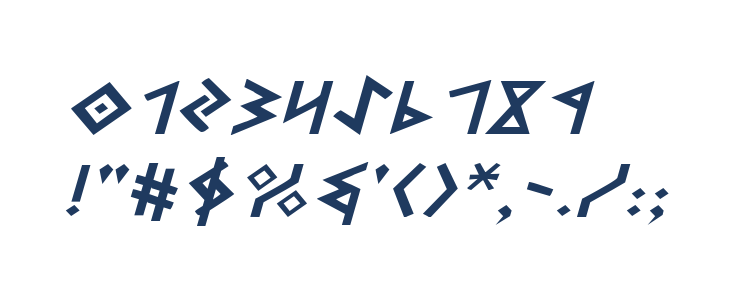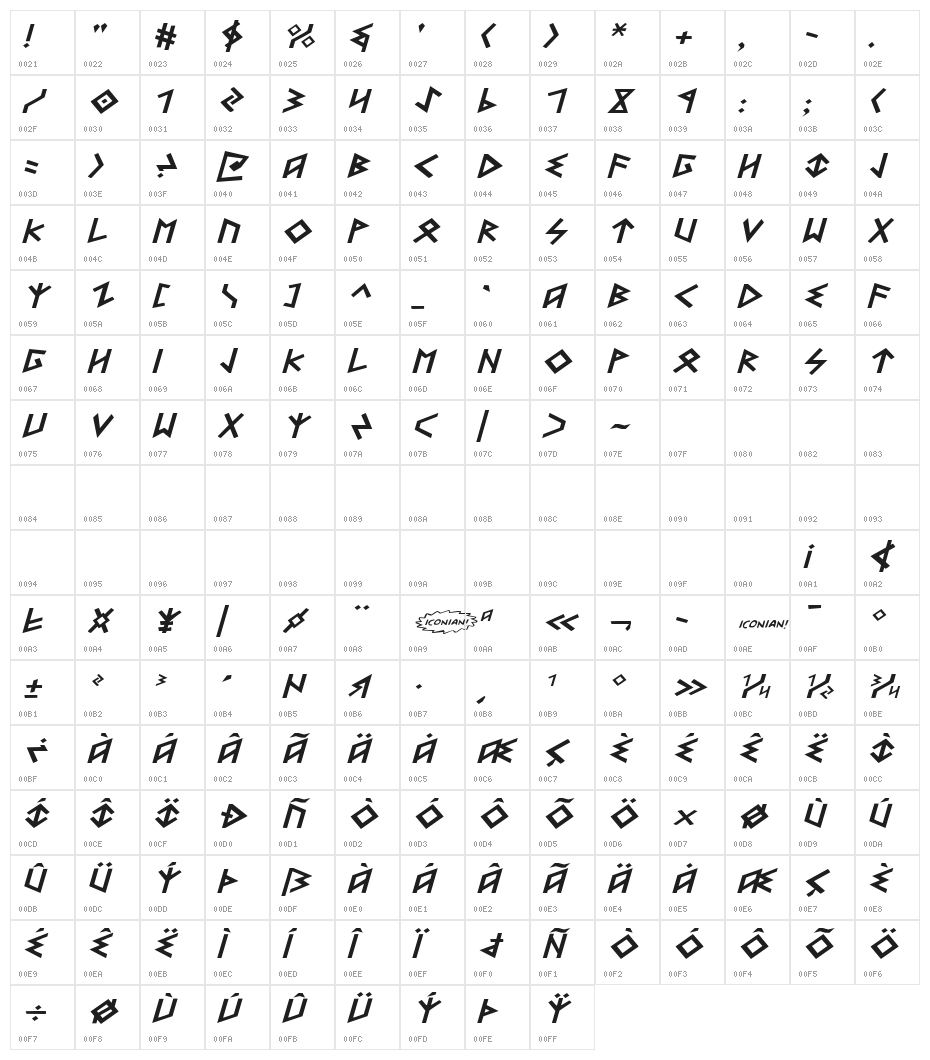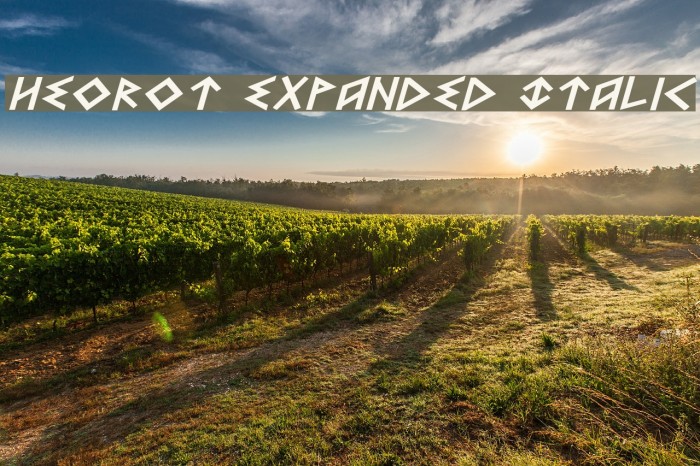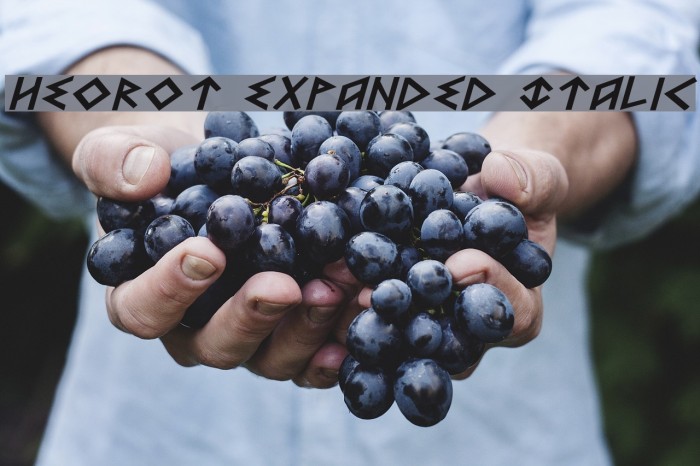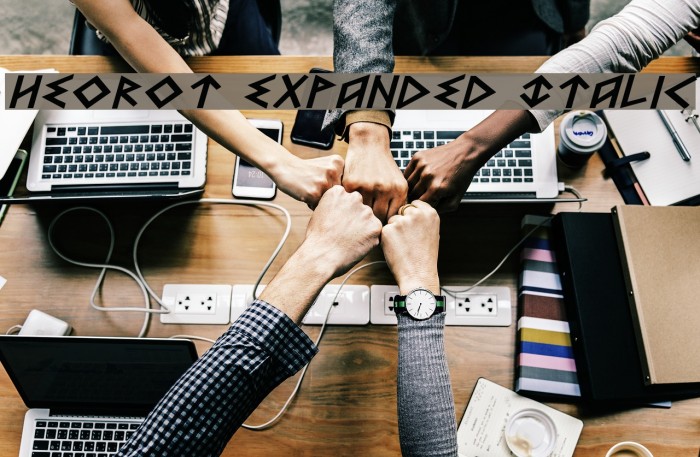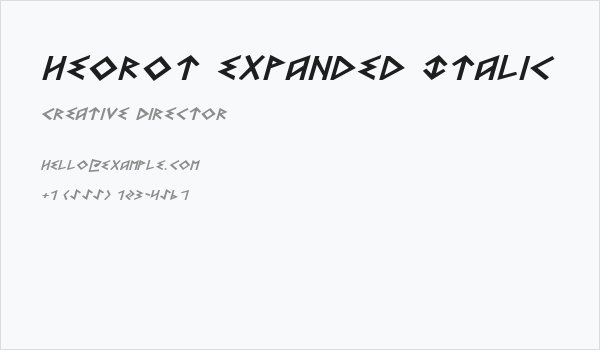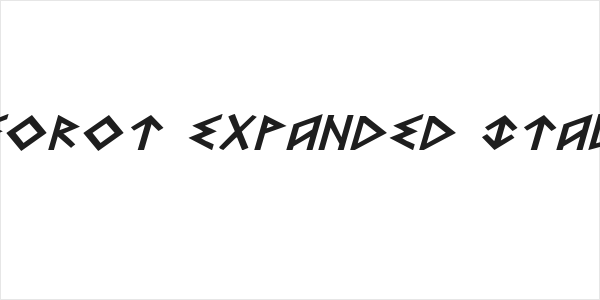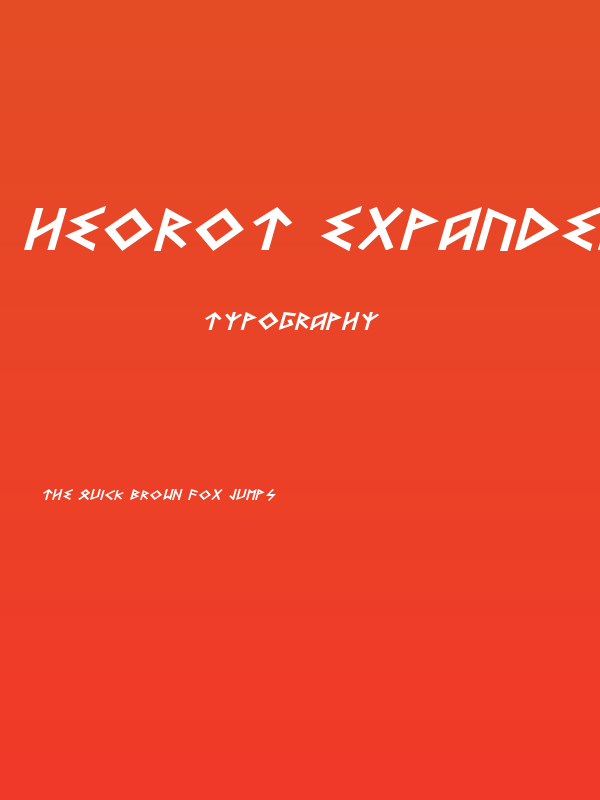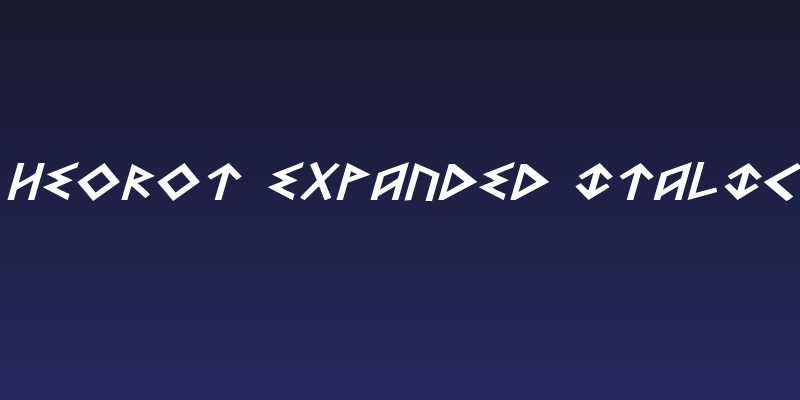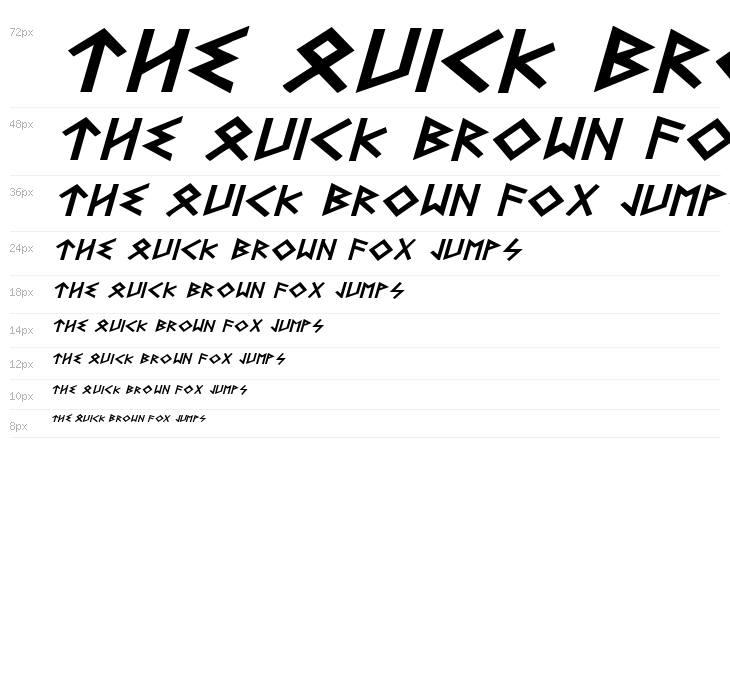
Heorot Expanded Italic Font
Heorot Expanded Italic Description
This font features a bold and dynamic design with angular, geometric shapes that give it a futuristic and edgy appearance. The characters are expanded and italicized, creating a sense of movement and energy. The uppercase and lowercase letters maintain a consistent style, with sharp edges and unique forms that make each character stand out. The numbers and special characters follow the same design principles, ensuring a cohesive look across all elements. This font is ideal for projects that require a modern and striking visual impact.
Proposed ProjectsIdeal for sci-fi themed designs, video game graphics, posters, and branding that requires a modern and edgy look.